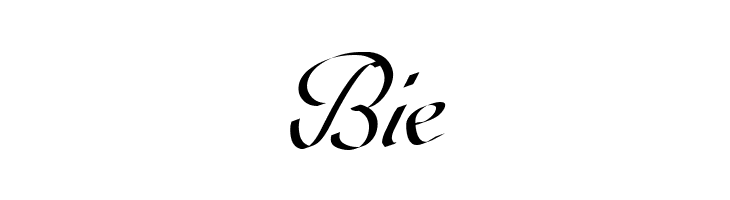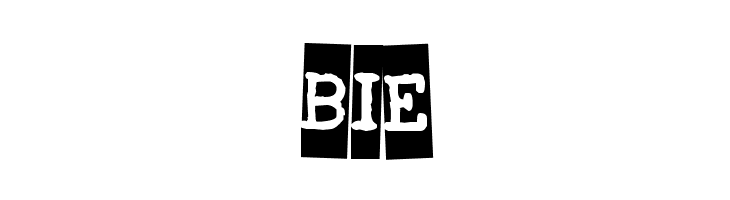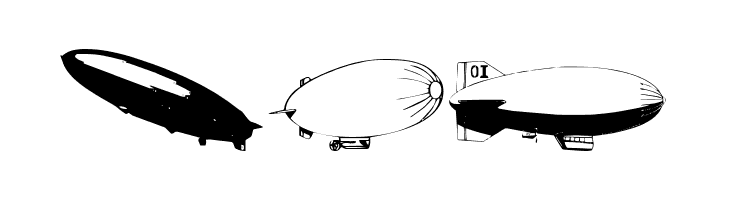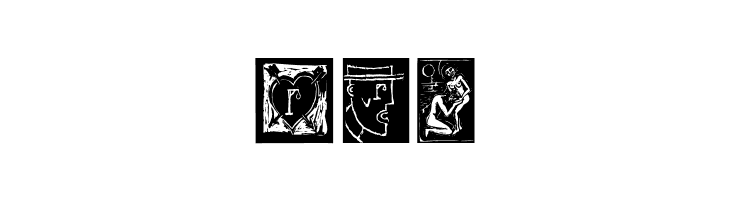
• Windows LT
A decorative dingbat font showcasing various window designs.
• WinterthurCondensedOblique
A sleek, condensed oblique font with a modern and elegant style.
• WolfsRain
• Wolgast Script
A dynamic and fluid script font with elegant, flowing letterforms.
• Wolgast Script
An elegant script font with flowing, handwritten-style strokes.
• WoodcutsFound
Intricate woodcut-style illustrations with bold, high-contrast lines.
• Woodenhead
• Xeppelin
A display font composed of zeppelin and airship illustrations for each character.
• Xerography
A playful, hand-drawn font with thick, uneven strokes and a whimsical style.
• XiBeronne
A traditional Blackletter font with ornate, medieval-inspired design.